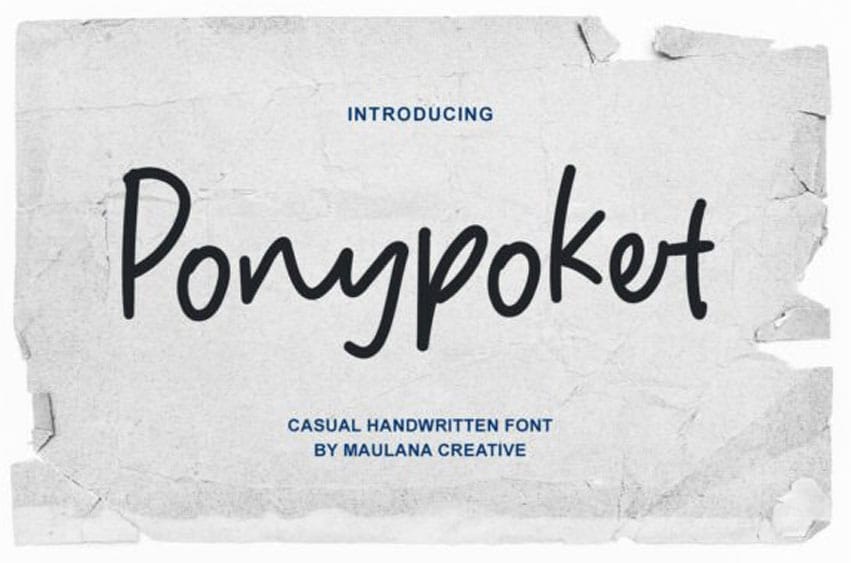
Ponypoket Font is a laid-back handwritten font with a clean, approachable charm. Its natural strokes and fluid letterforms give it a friendly personality, making it perfect for casual branding, journaling, product packaging, or social media graphics.
Whether used for quotes or headlines, Ponypoket adds a personal, hand-drawn feel to your designs.